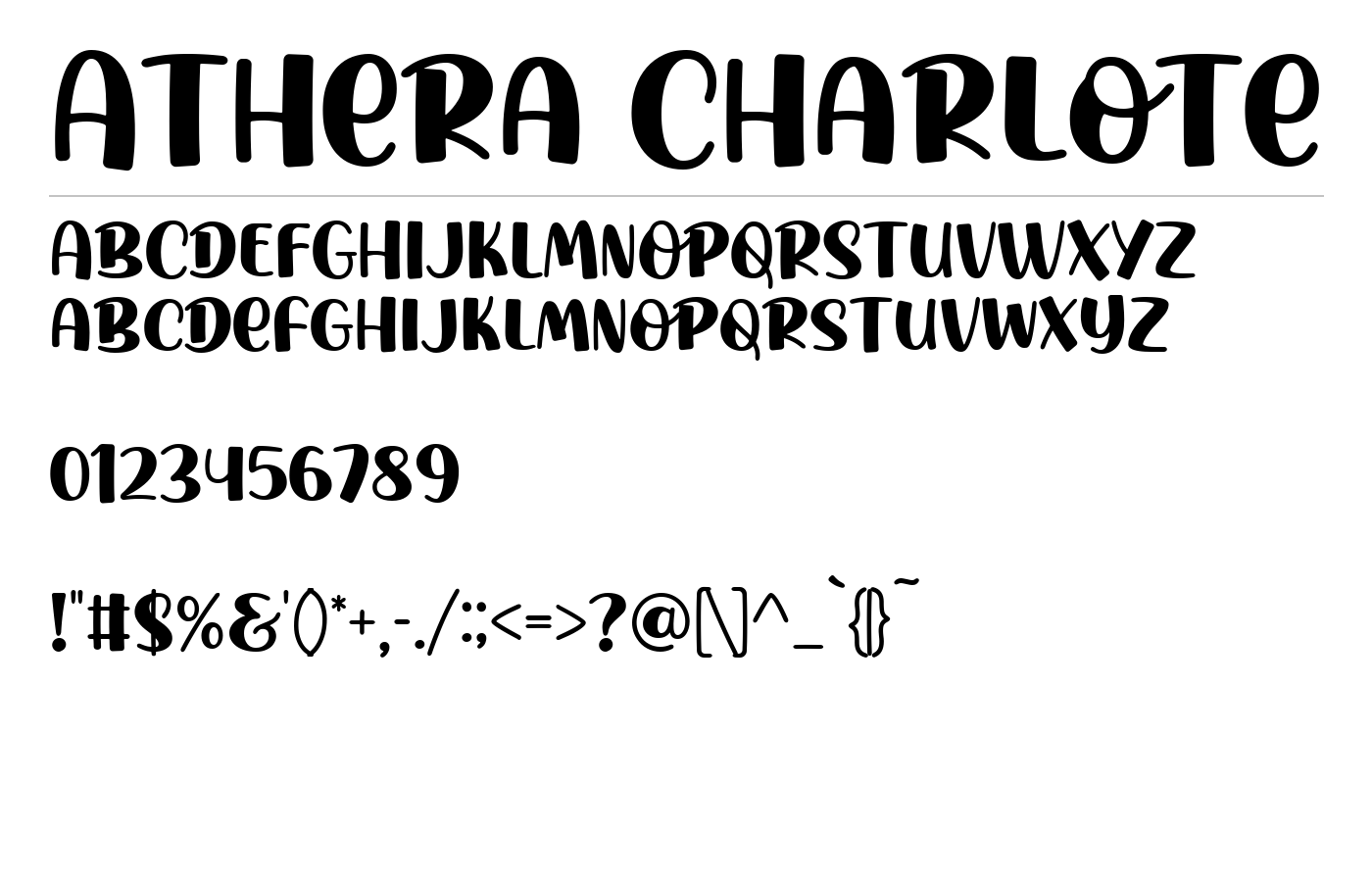
Athera Charlote is a playful and bold sans serif font with a unique handwritten charm, featuring rounded, slightly irregular shapes that give it a warm and approachable feel. Its medium weight and moderate contrast make it perfect for eye-catching headlines, branding, and creative projects that want to convey friendliness and personality. This font works well in casual design contexts such as packaging, posters, and social media where a lively, informal tone is desired.
Athera Charlote Font
About Athera Charlote Font